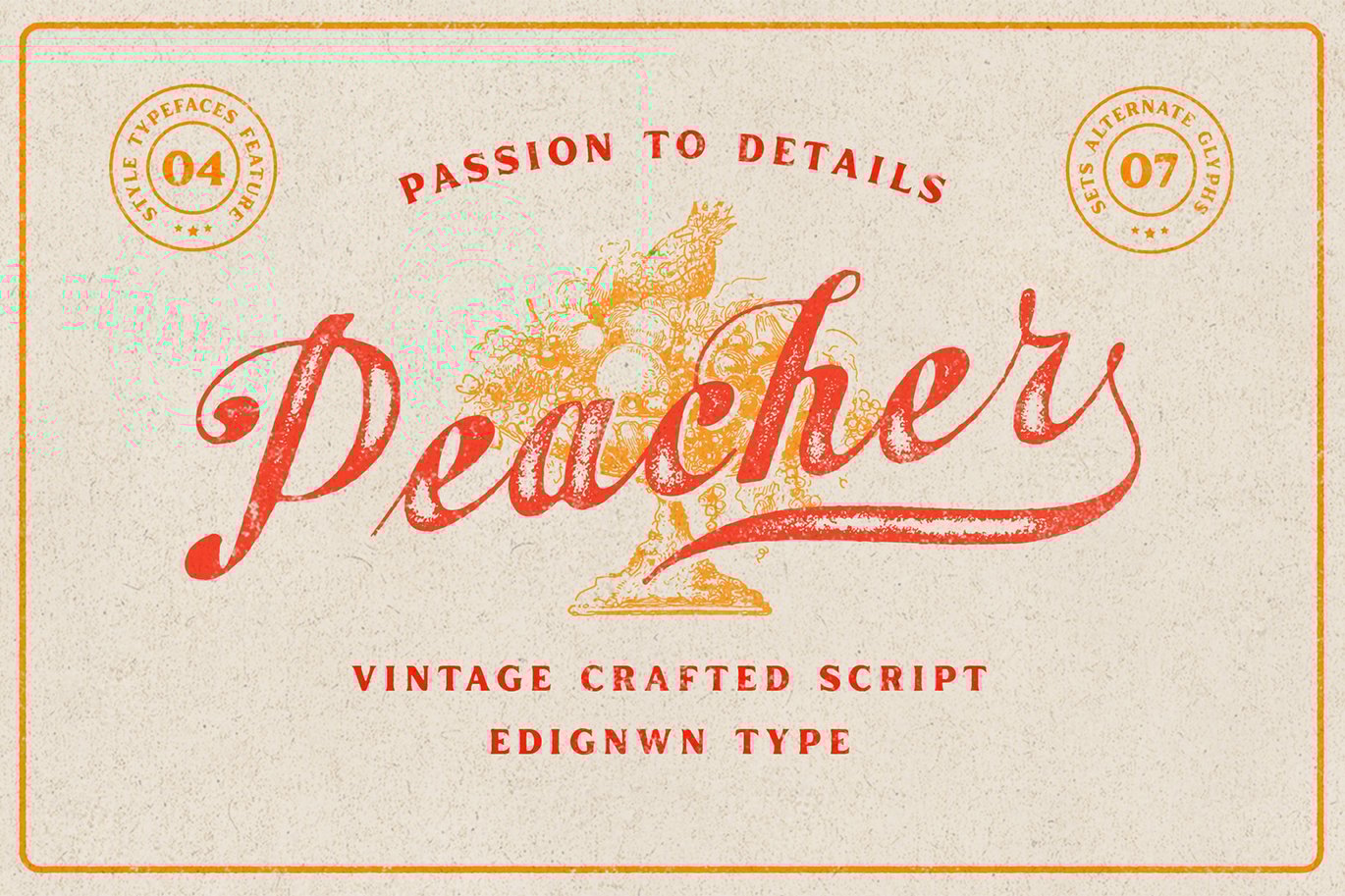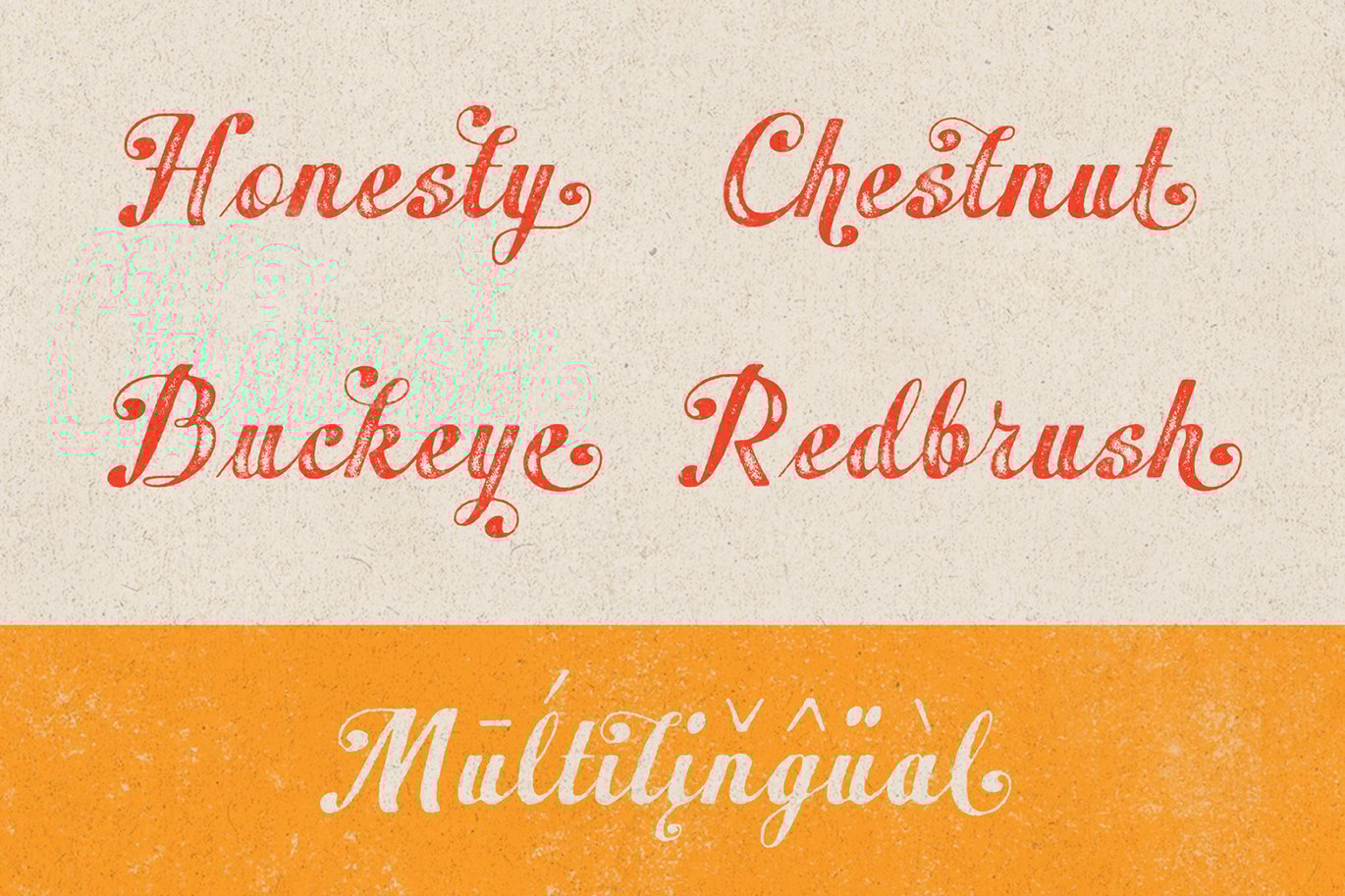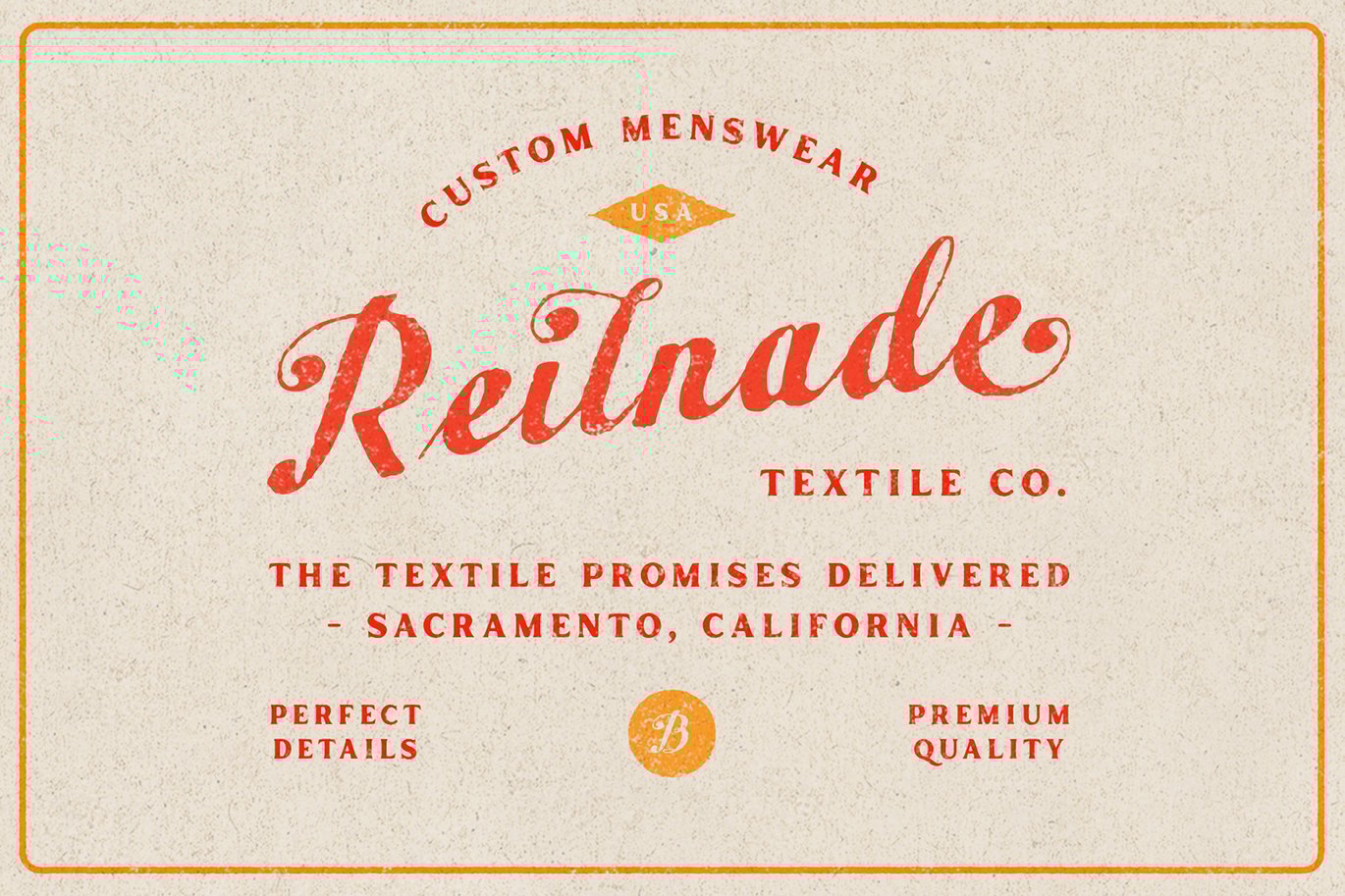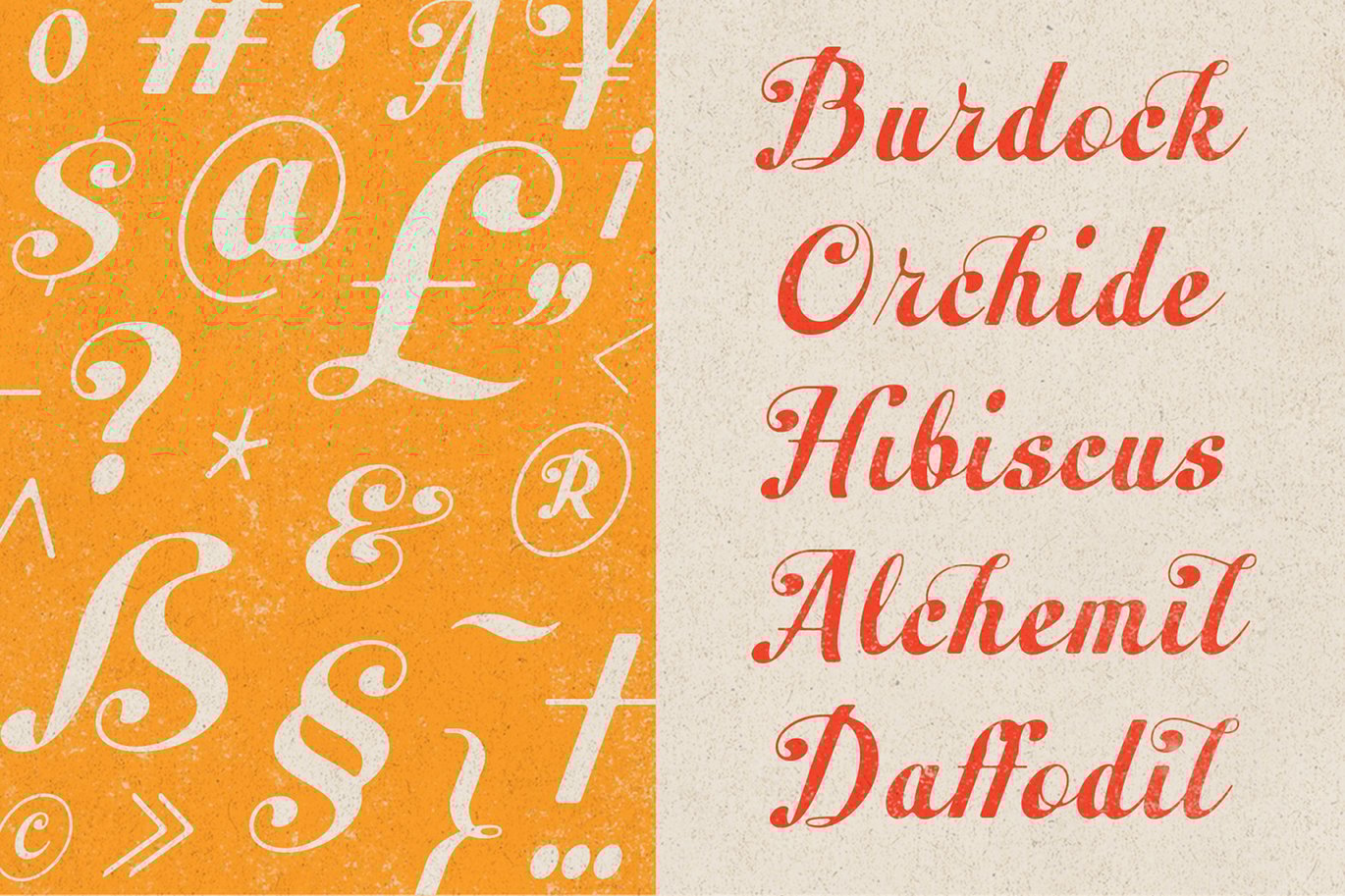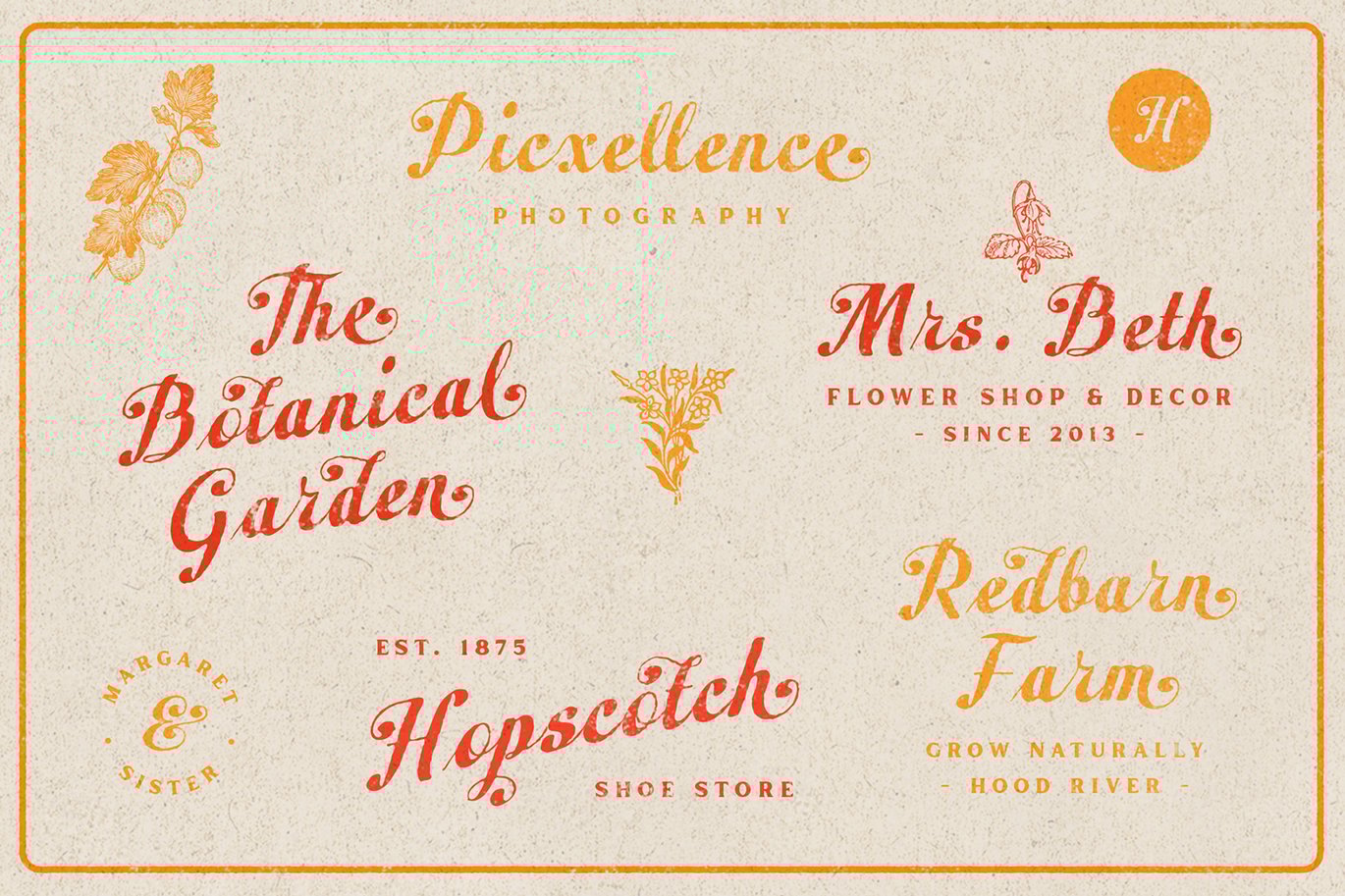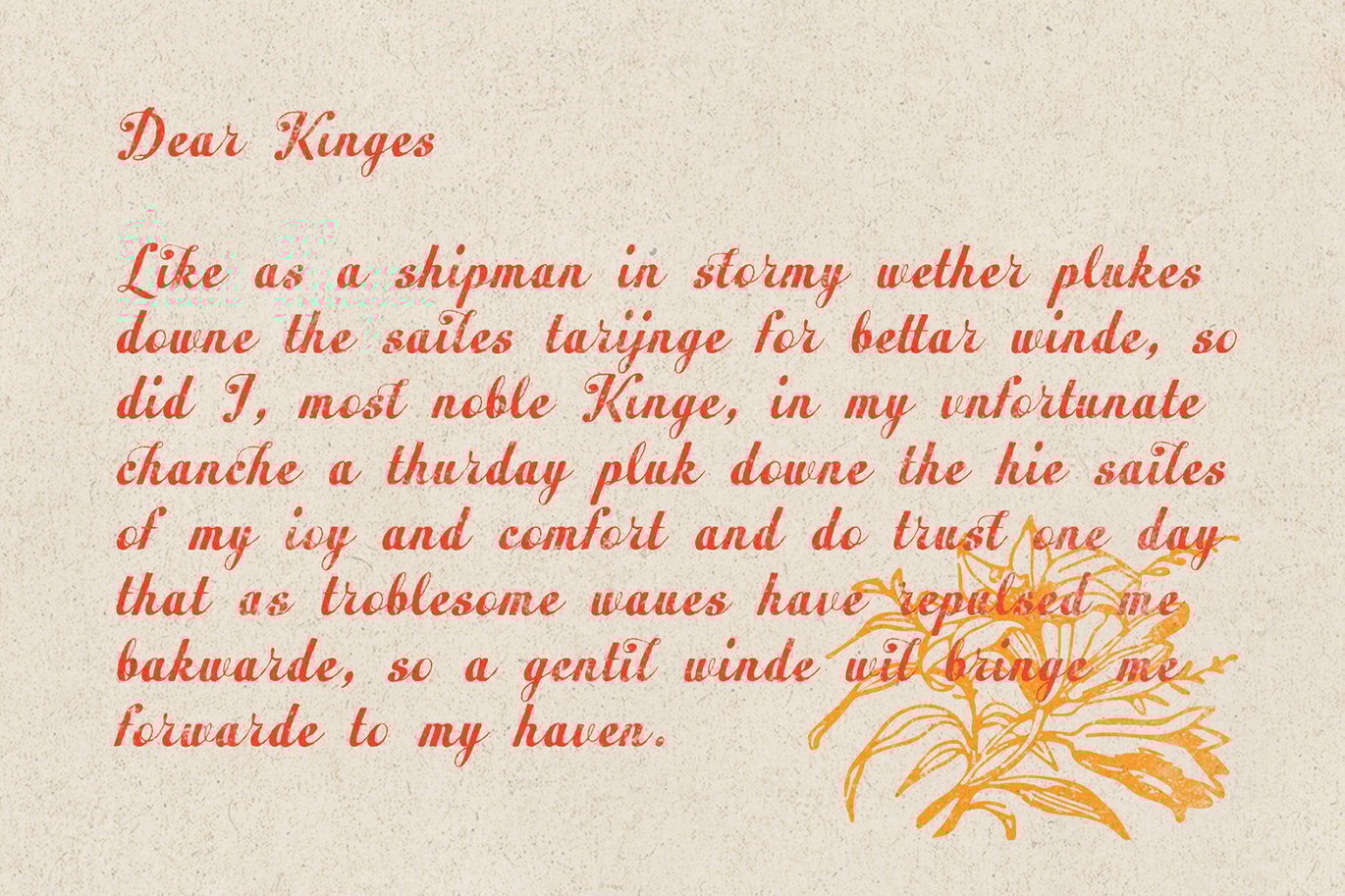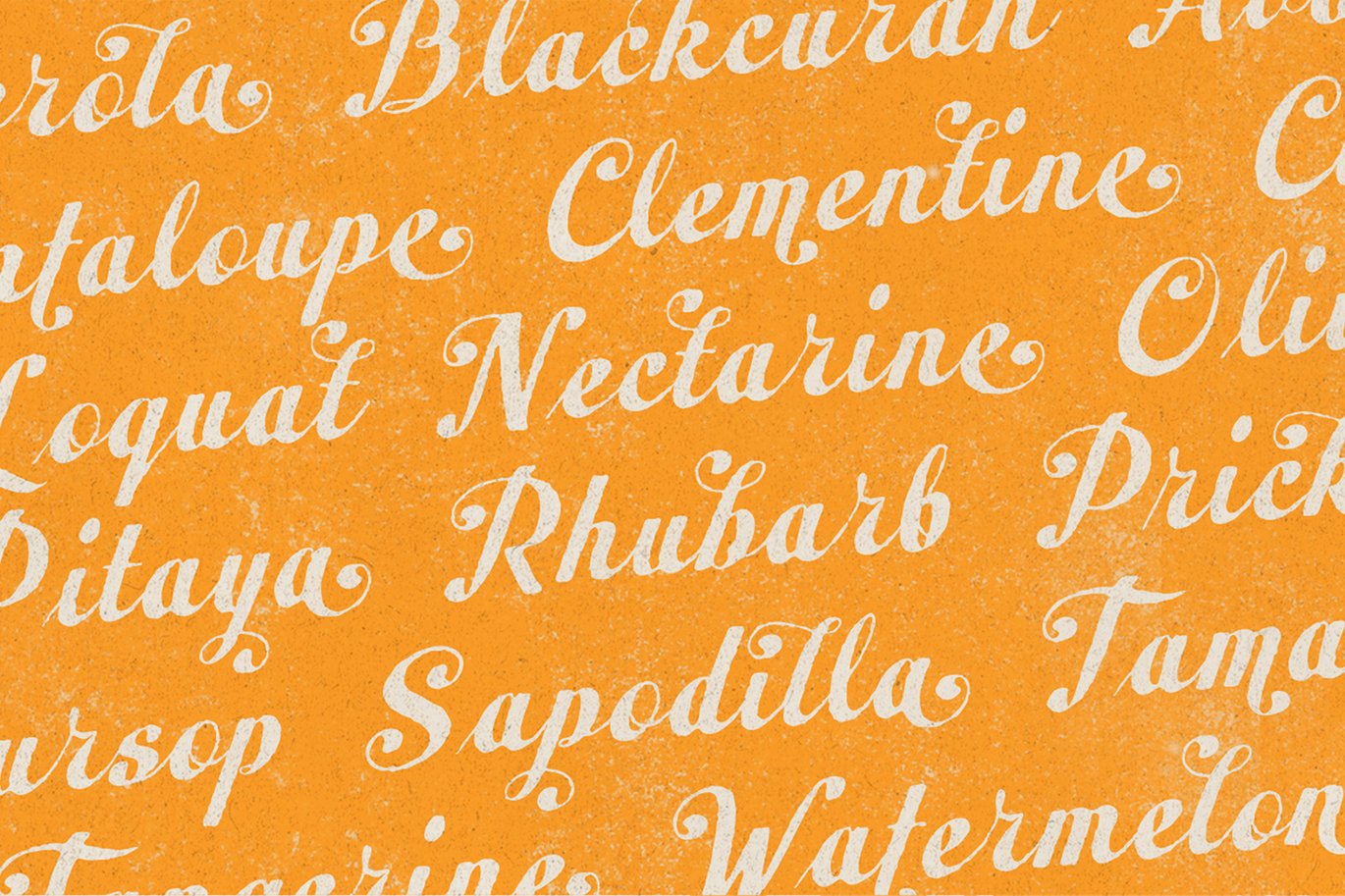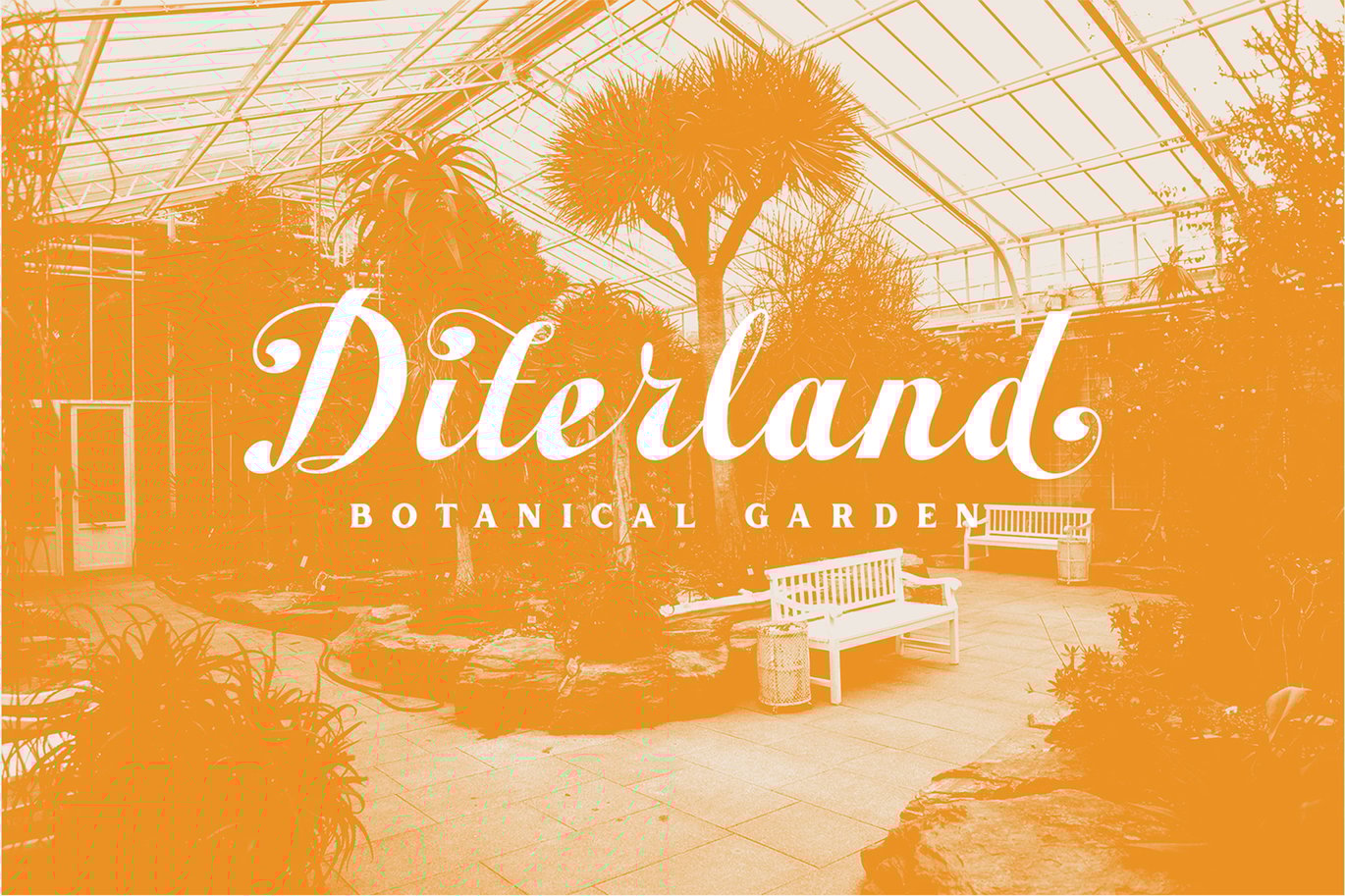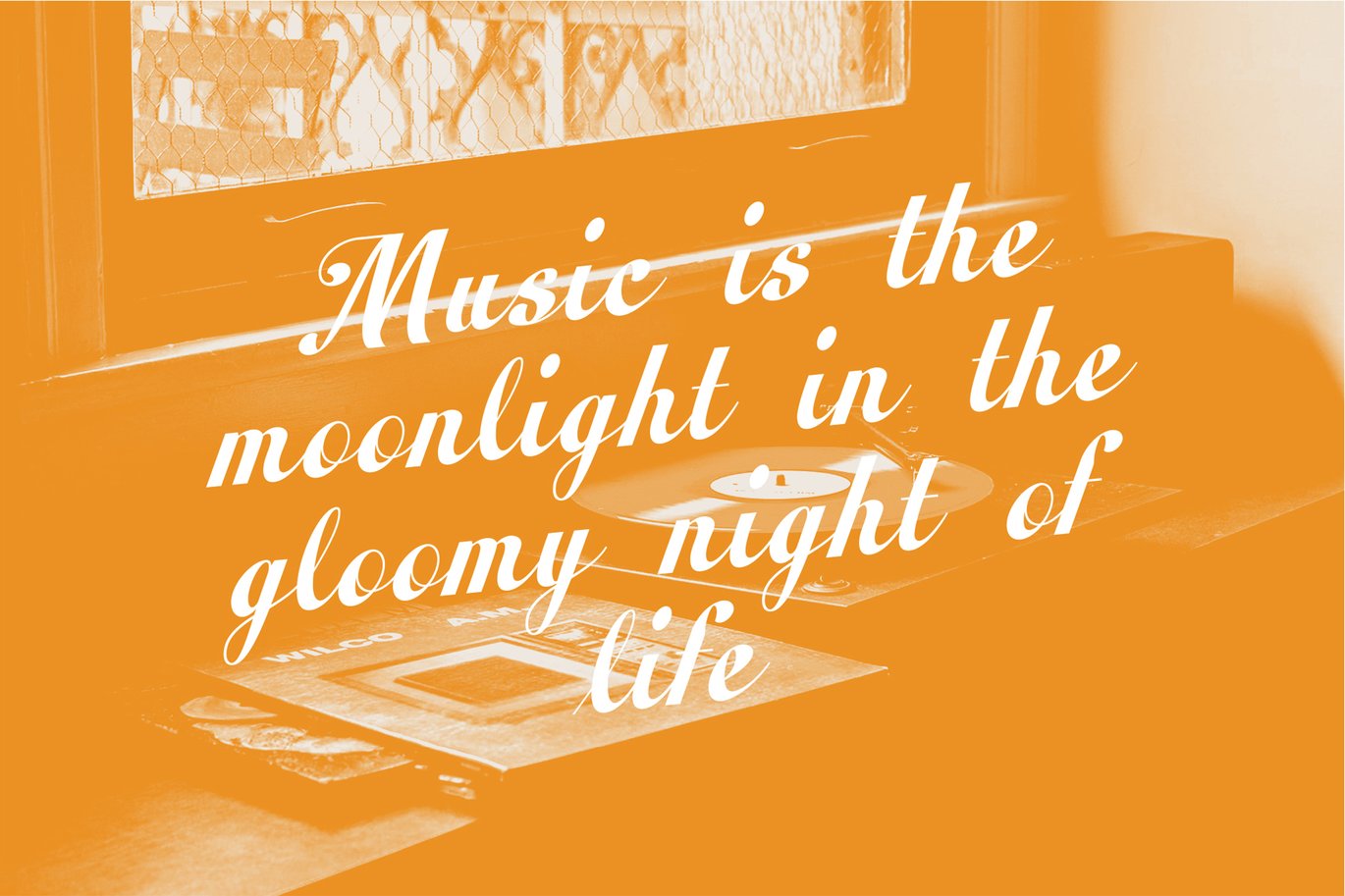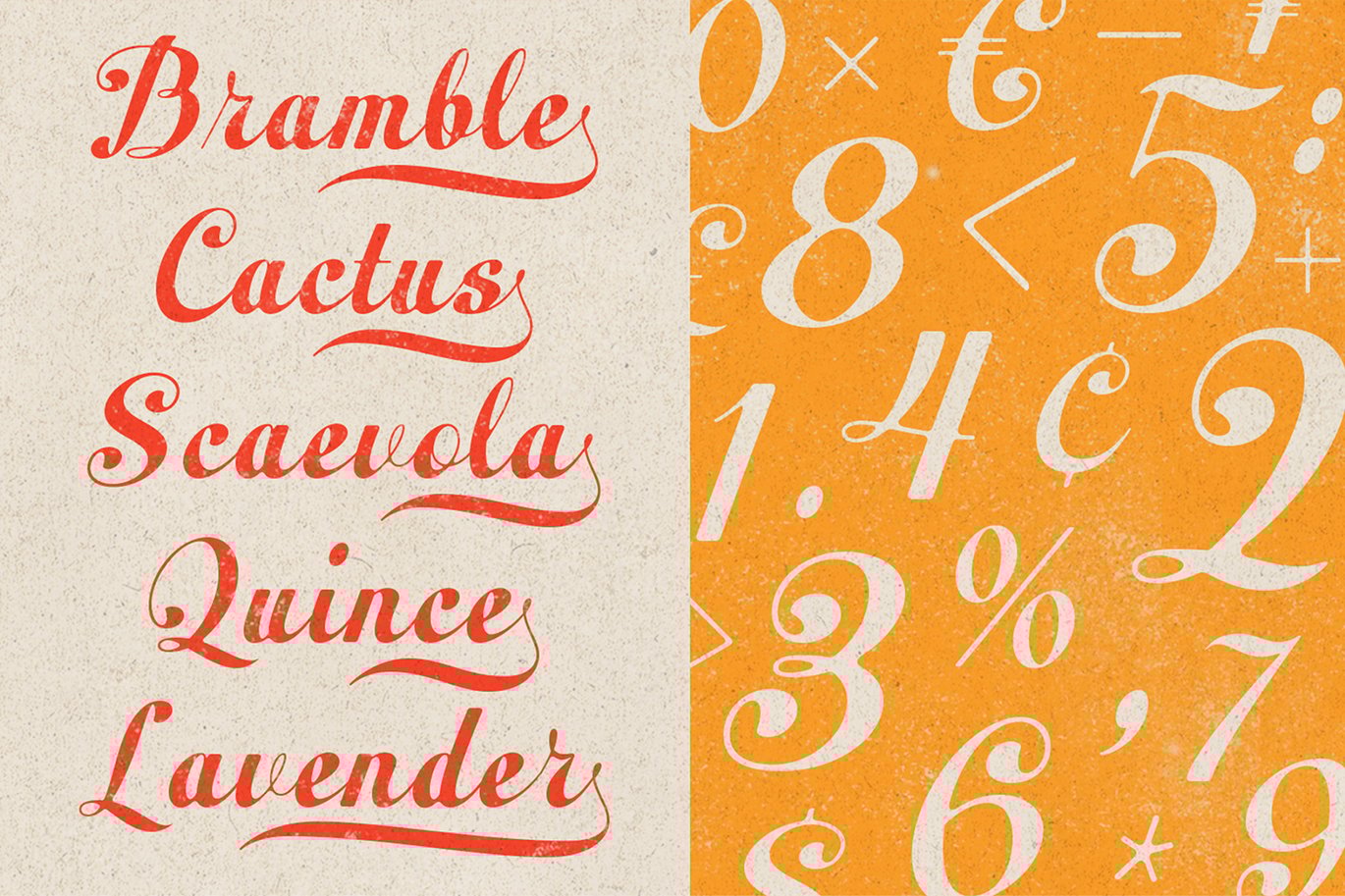
Peacher – Vintage Script Font
The Peacher perfectly represents crafted stuff of vintage script. This project was inspired by beautiful old labels. The product includes 4 styles (regular, rounded, rough and textured). This matches applies in some designs such as the logotype, poster, label, badge, packaging, branding, quotes and more custom design.
Peacher includes :
- 4 style typefaces (regular, rounded, rough and textured)
- Uppercase, lowercase, numeral, punctuation and symbol
- 7 sets of alternates and swashes
- 25 ligatures